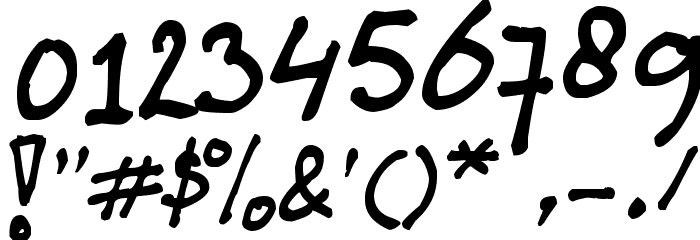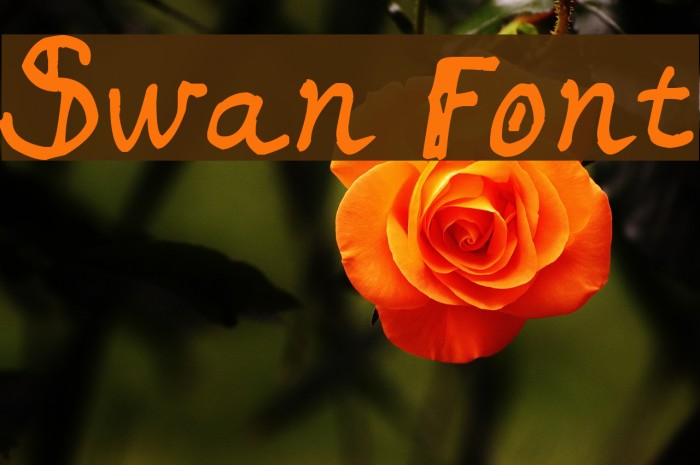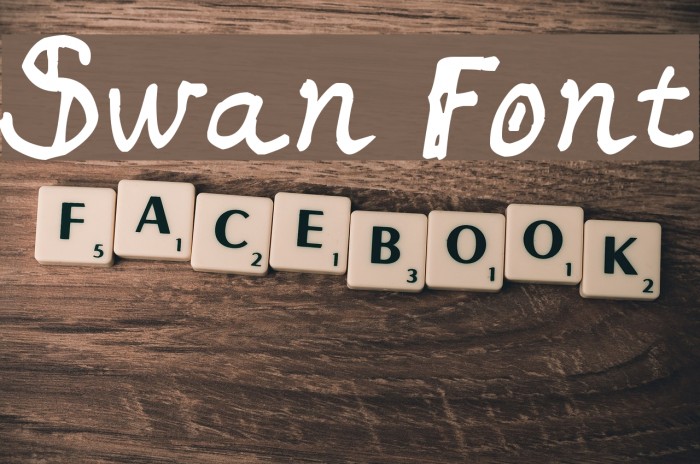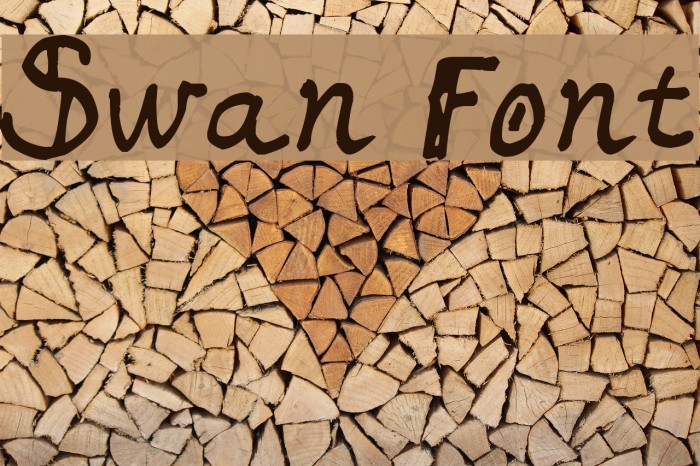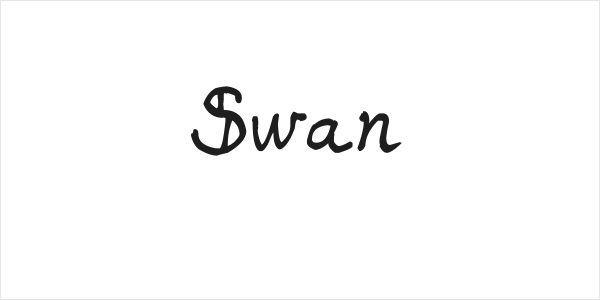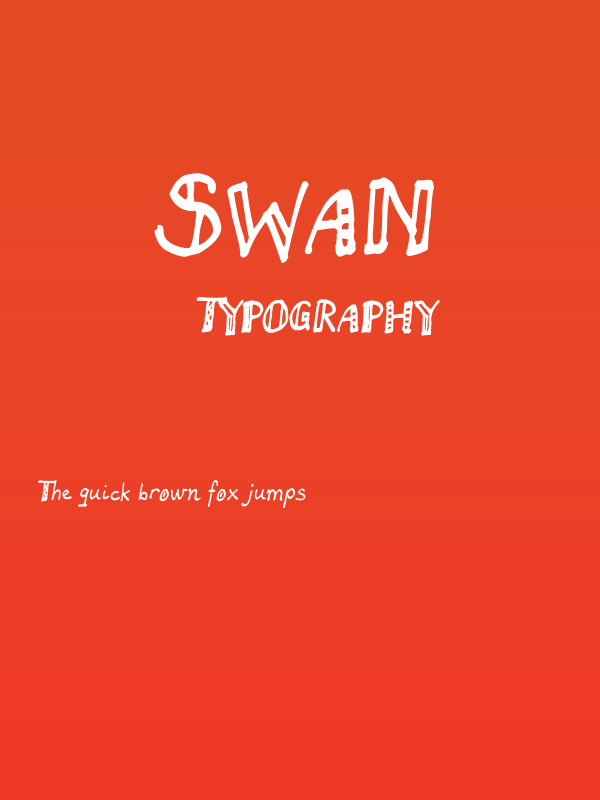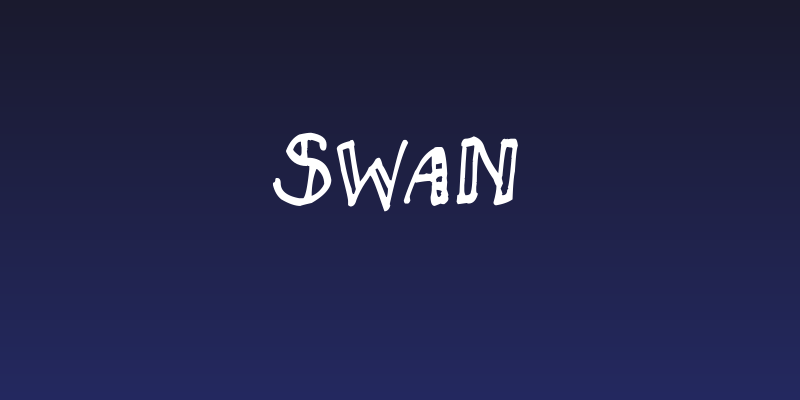
Swan Font
Swan Description
This font features a playful and artistic style with a hand-drawn appearance. The uppercase letters have a unique, slightly irregular shape, giving them a whimsical and creative feel. The lowercase letters maintain this hand-crafted look, with smooth curves and varied line thicknesses that add to the font's charm. Numbers and special characters follow the same artistic theme, making the font versatile for various creative projects. The overall design is bold and expressive, ideal for capturing attention and conveying a sense of fun and creativity.